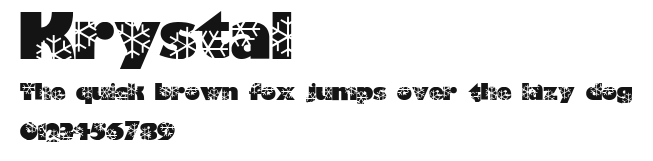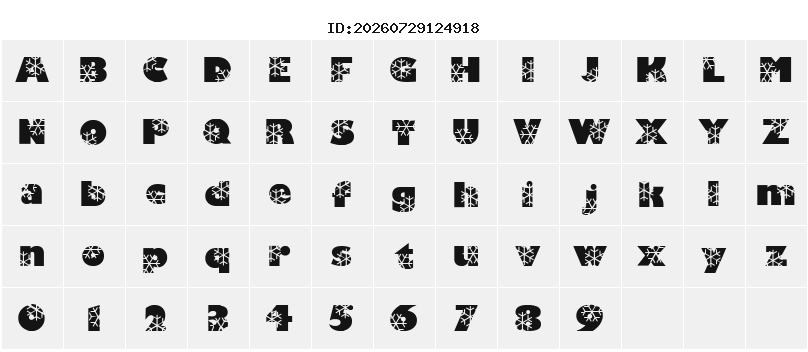
• Font Name: Krystal
• Full Font Name: Krystal
• Version: Based on Gill Sans Ultra Bold
• PostScript Name: Krystal
• Character Count: 112
About Krystal.ttf
Krystal.ttf is a modern, elegant sans-serif font designed for ultimate readability and visual harmony. Perfect for branding, headlines, web design, and print materials.